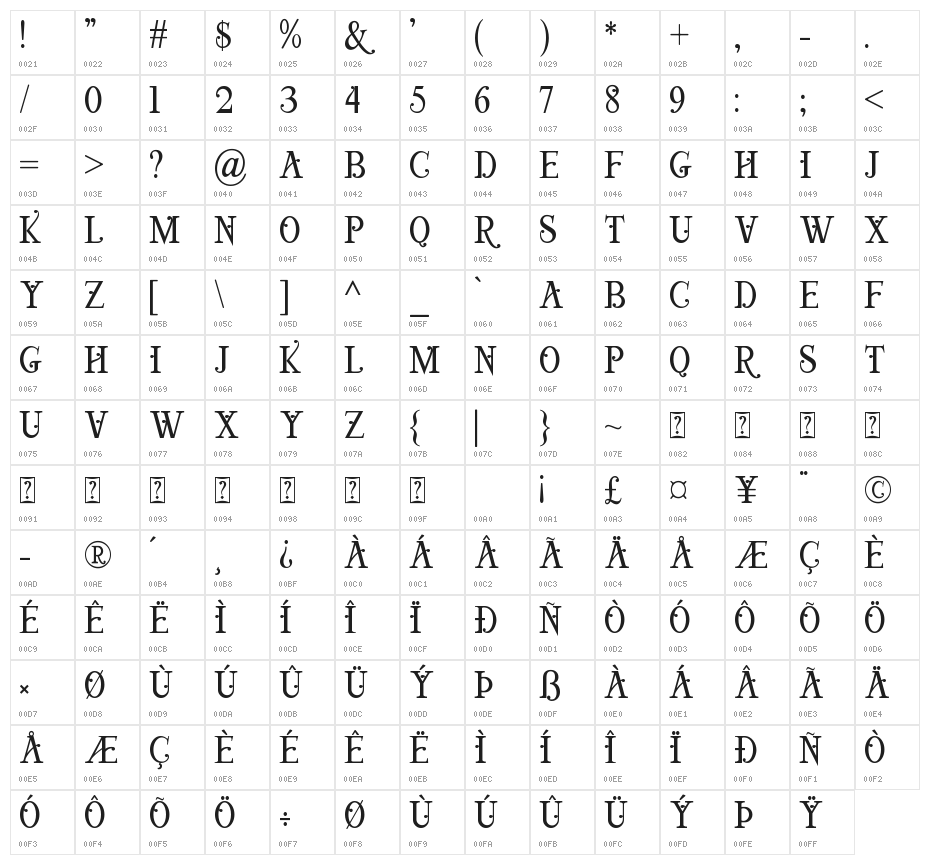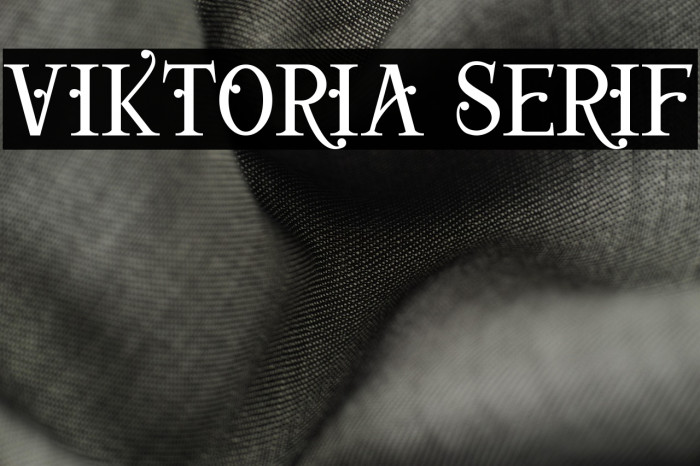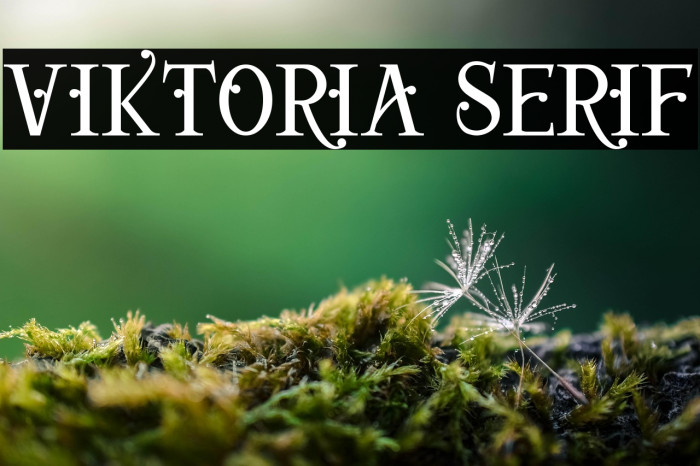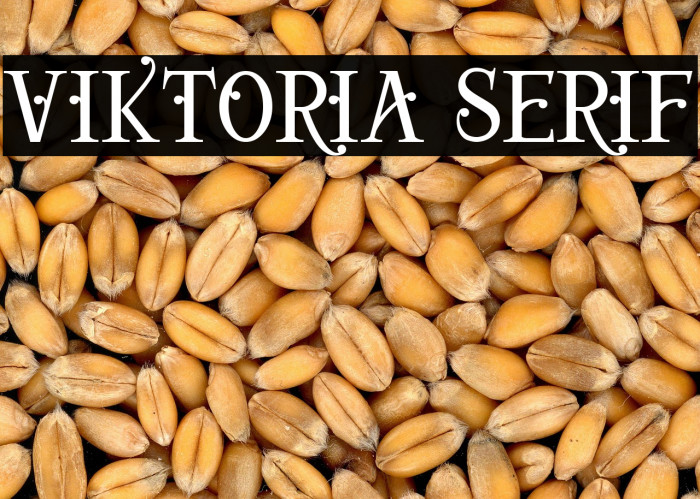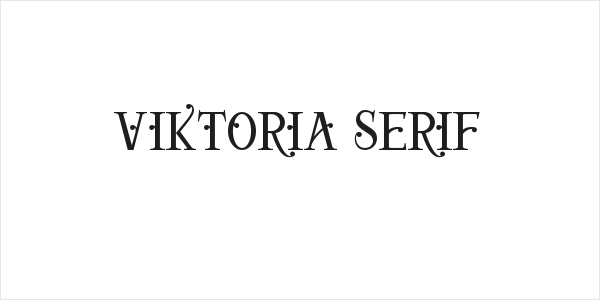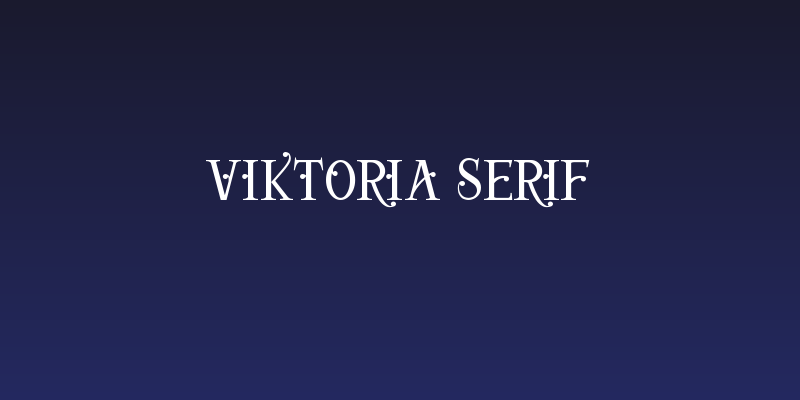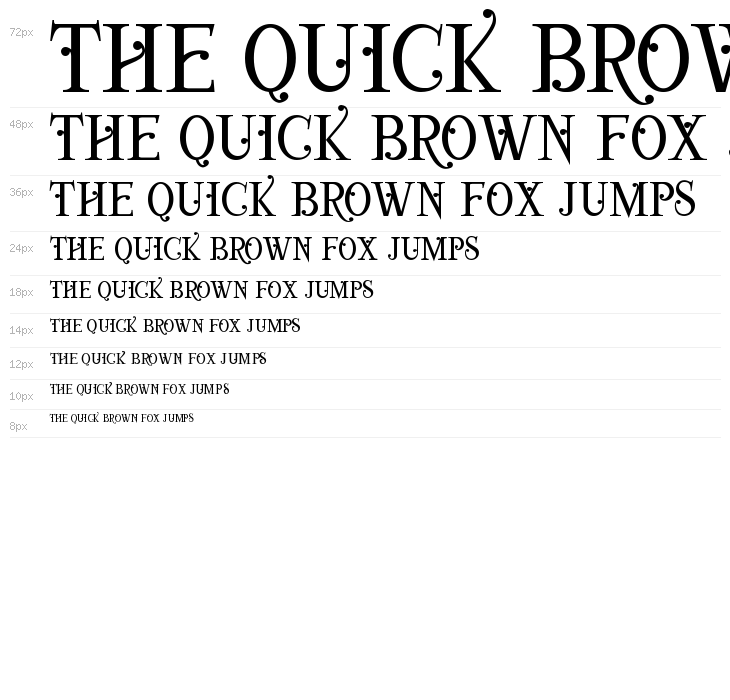
Viktoria Serif Font
Viktoria Serif Description
This font features a classic serif style with elegant and decorative elements. The characters are well-defined with distinct serifs that add a touch of sophistication and traditional appeal. The uppercase letters exhibit a formal and structured appearance, while the lowercase letters maintain a consistent flow with slight embellishments. The numerals are clear and legible, complementing the overall aesthetic. Special characters are designed with attention to detail, enhancing the font's versatility. This font is suitable for projects that require a refined and timeless look.